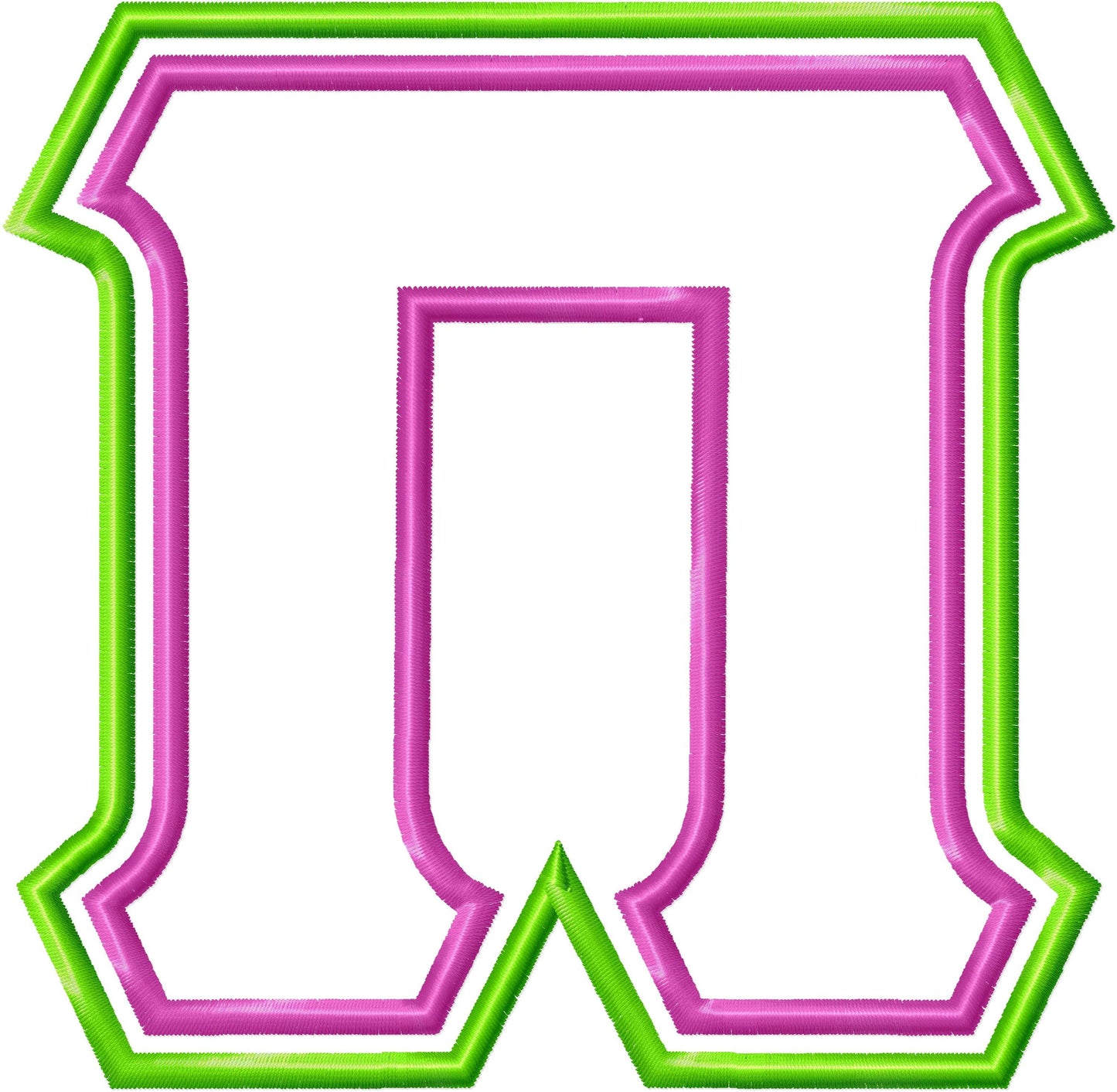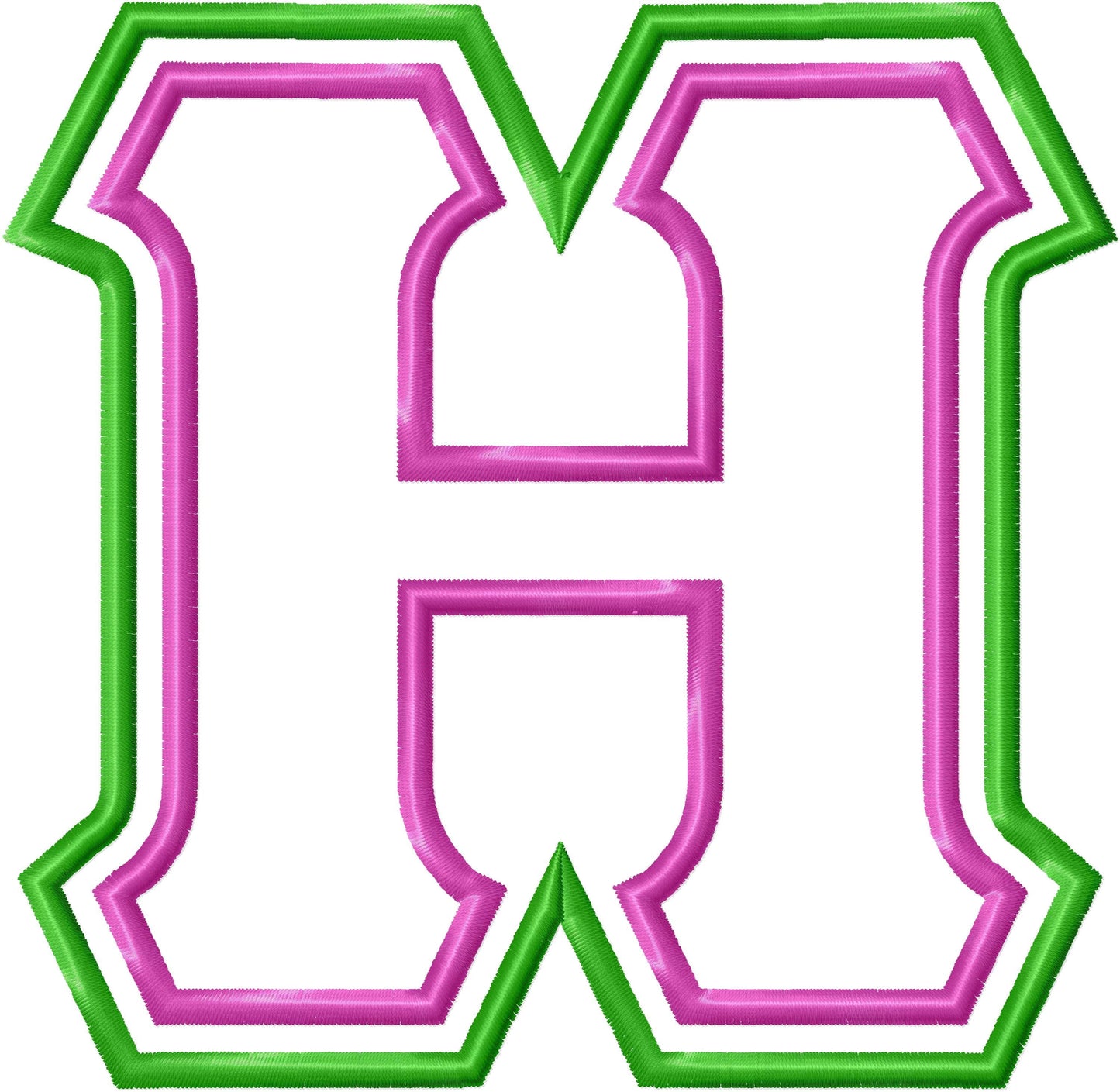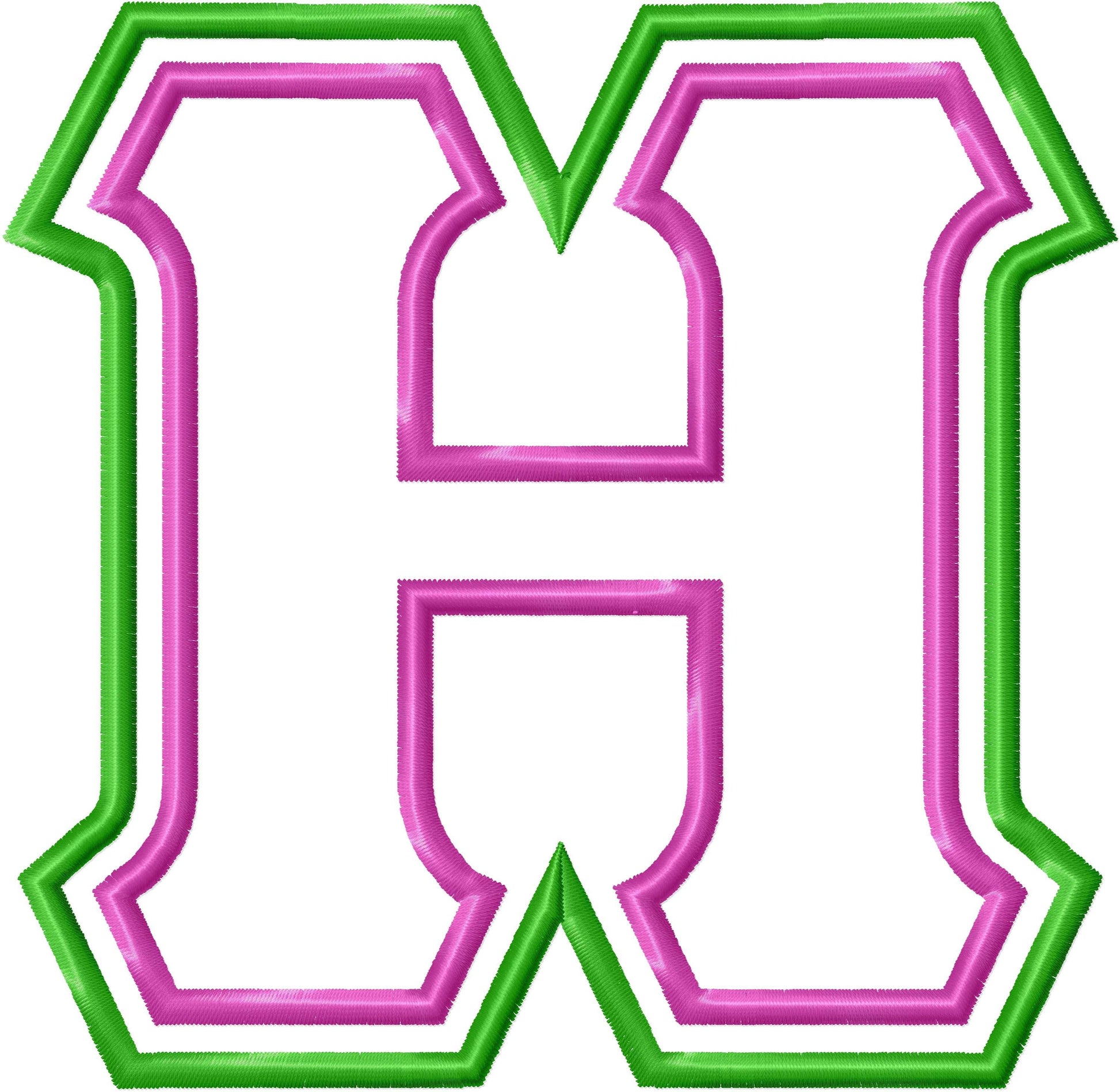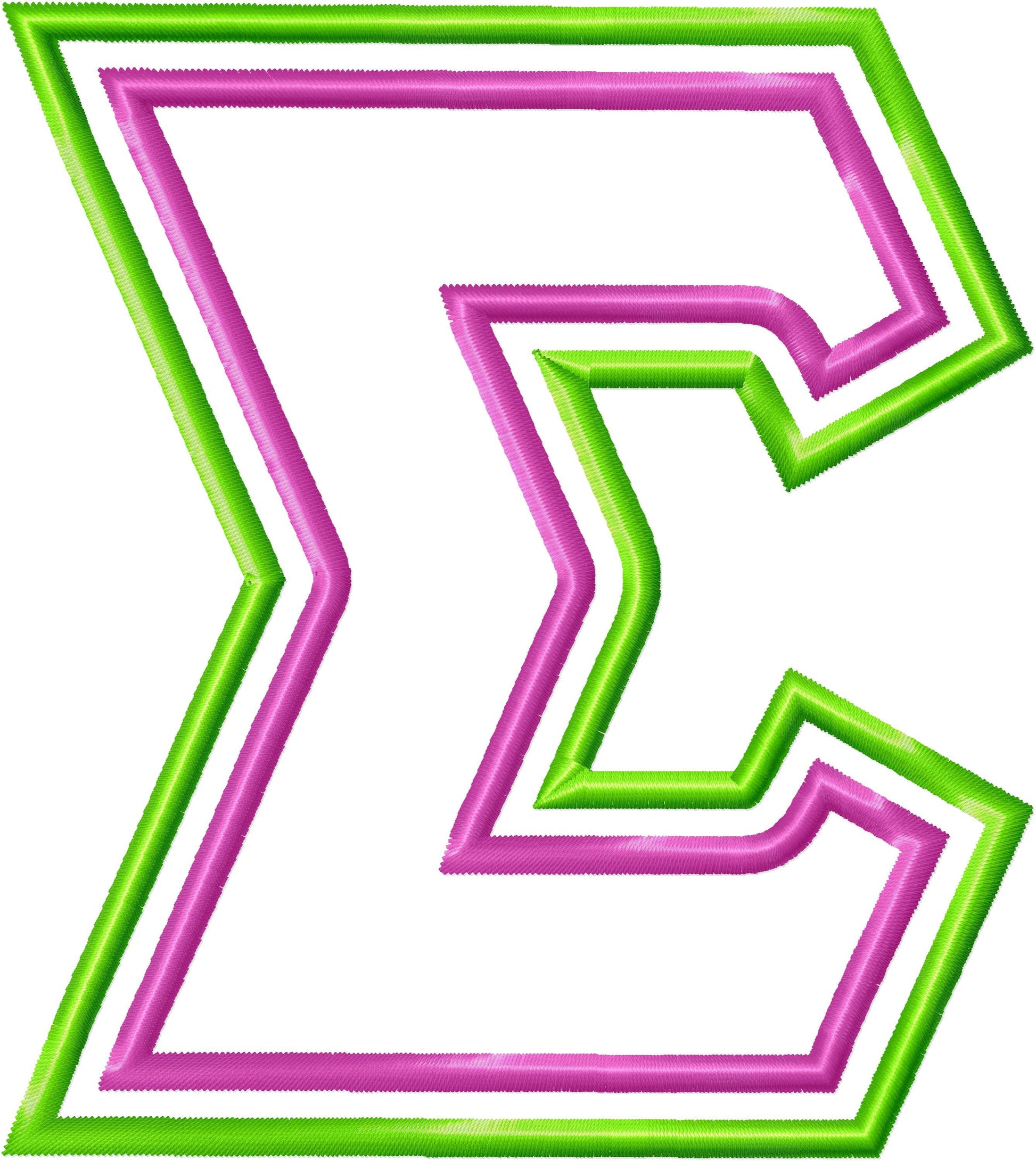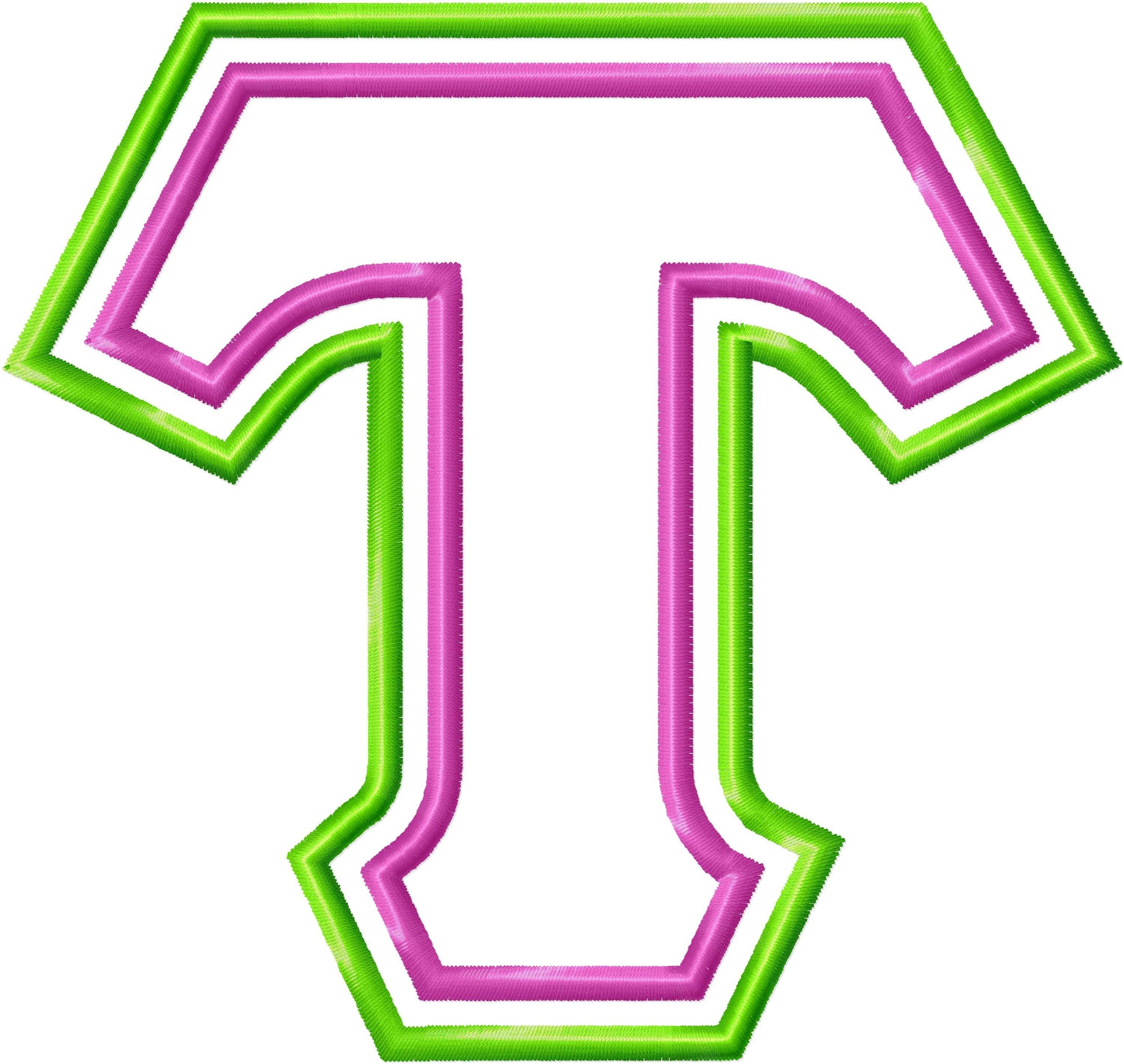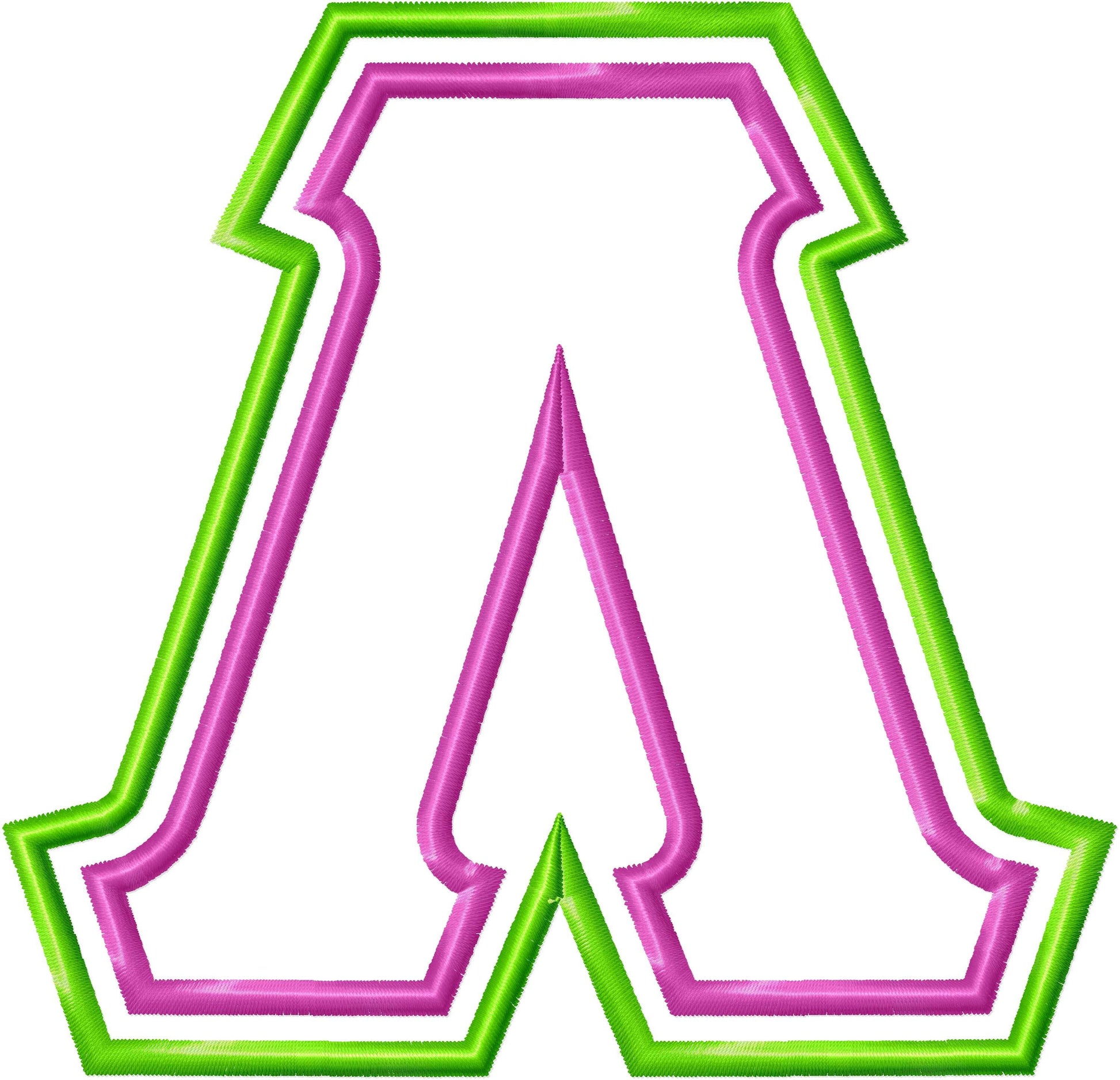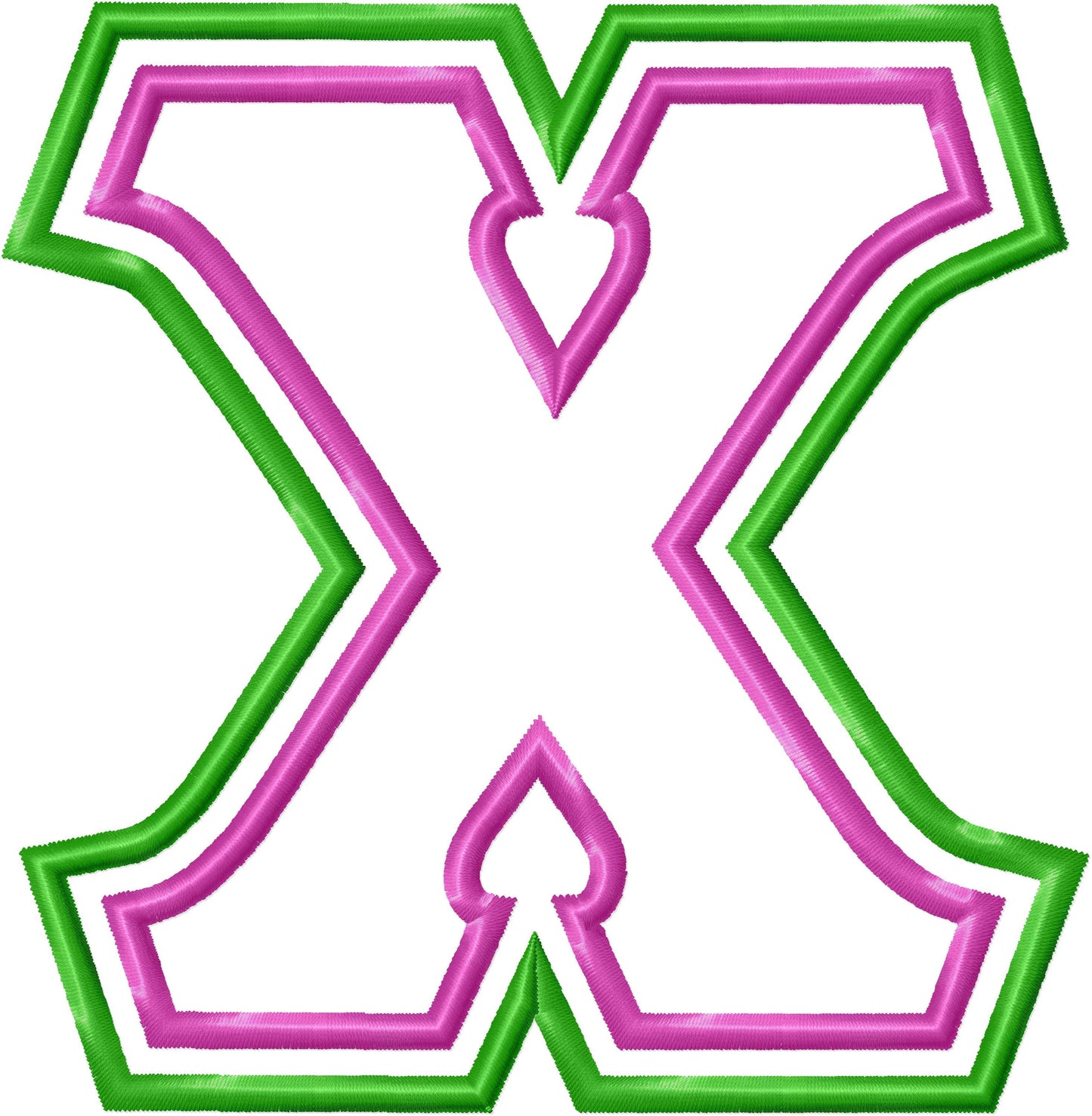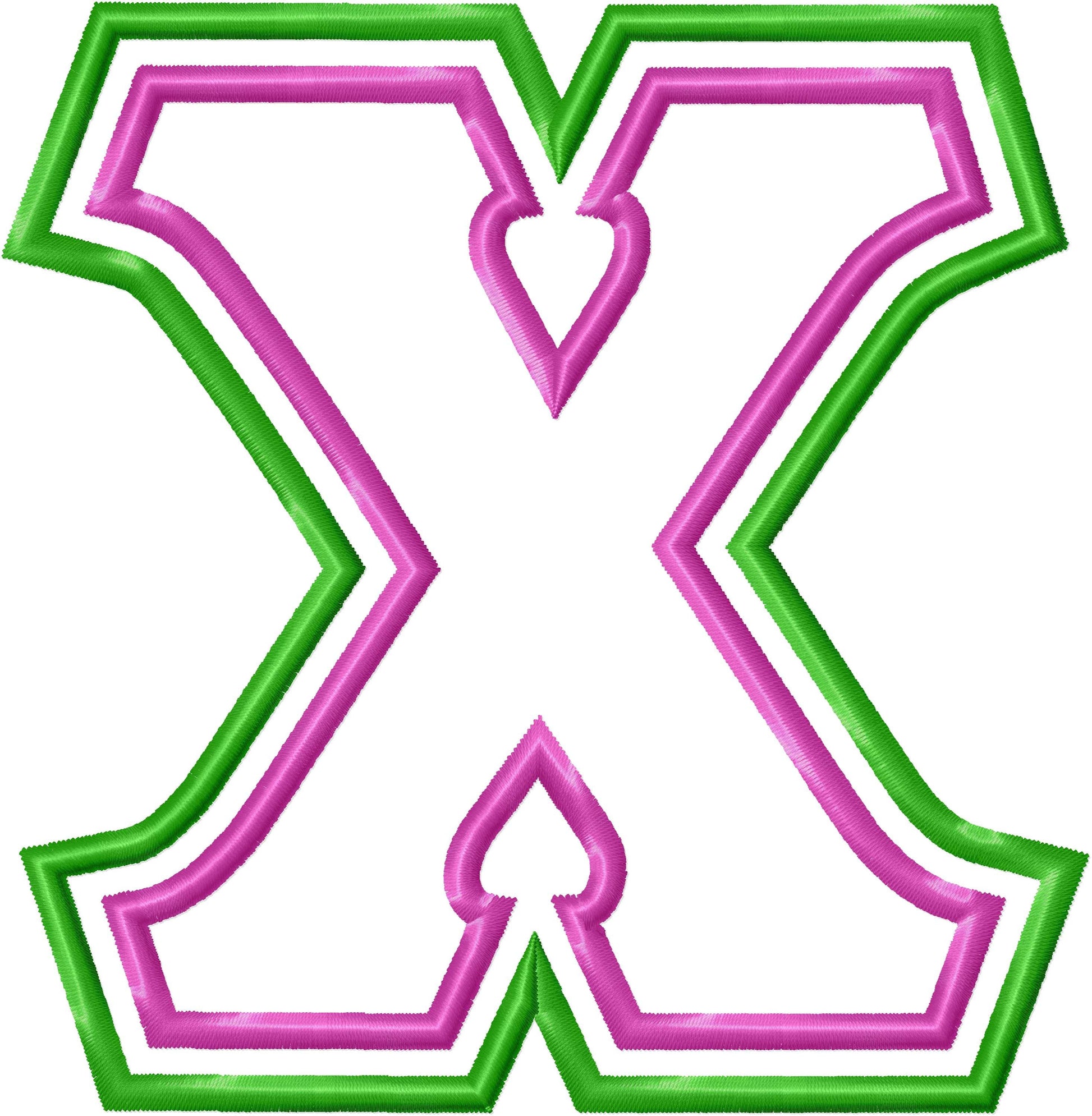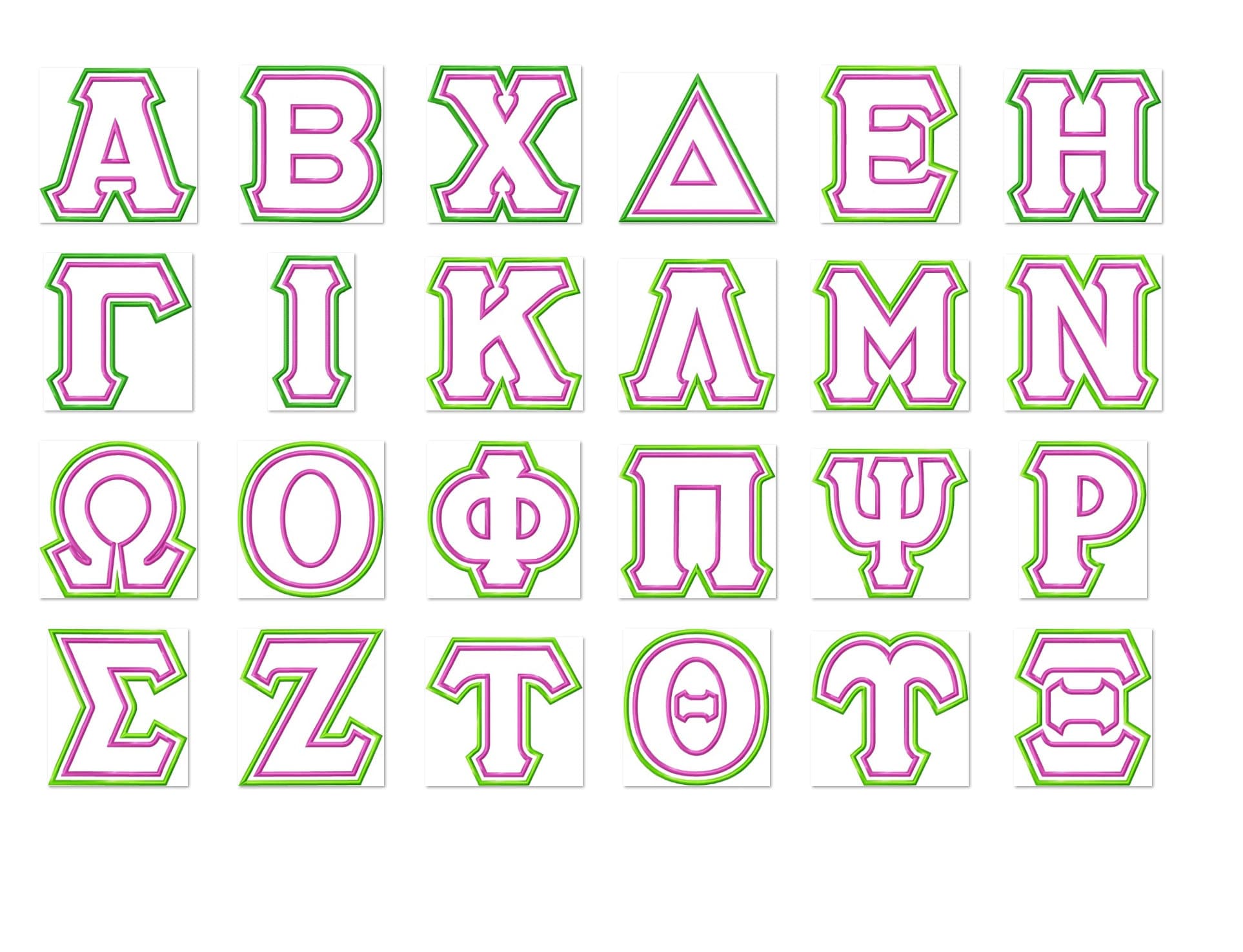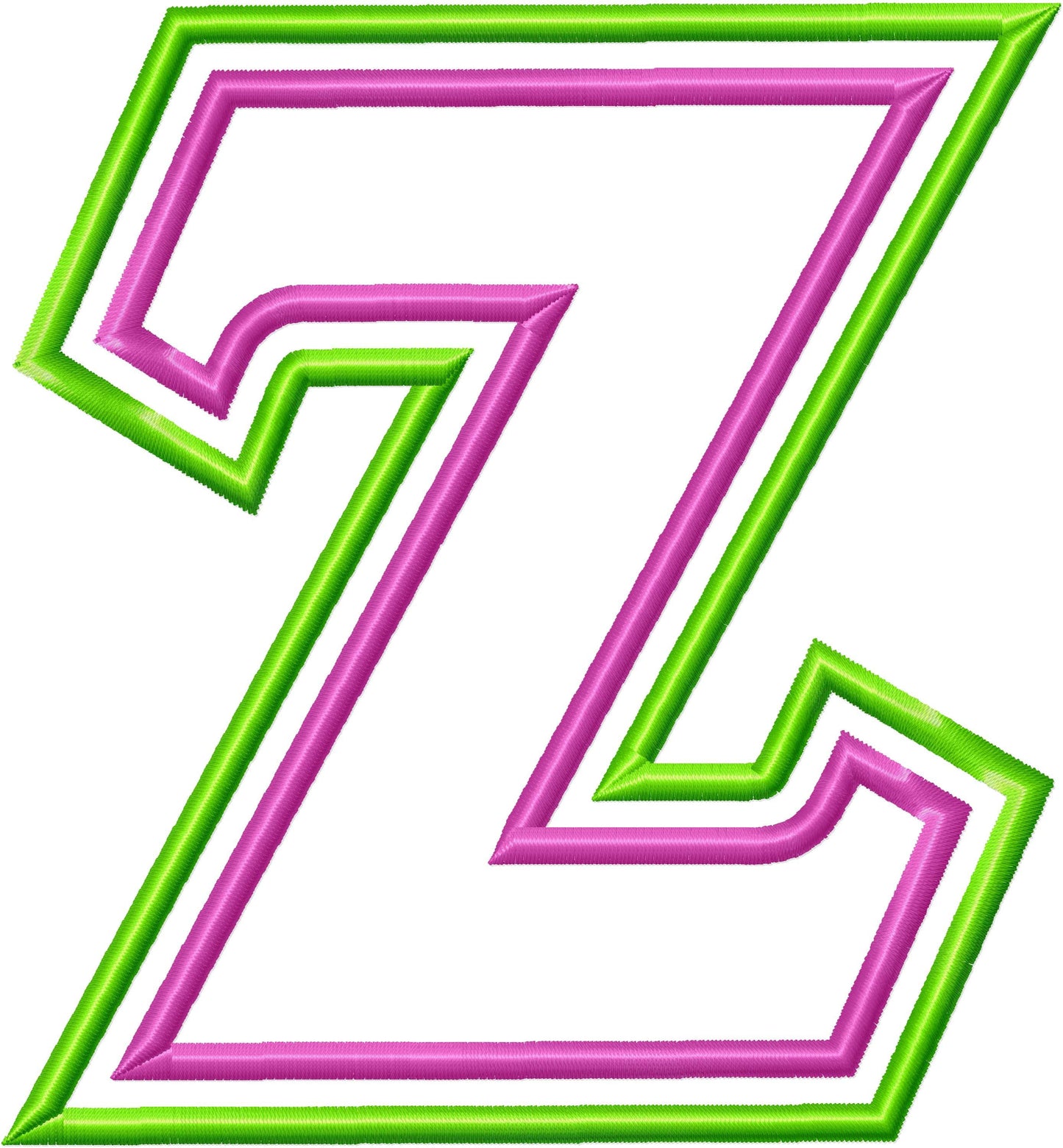
Sororities Greek 2 Layers Font
The whole Greek alphabet as a two-layer classic satin applique, for sorority and fraternity letters. Great on jerseys, sweatshirts and bags.
All 24 Greek letters as a two-step double applique with a classic satin stitch outline, in two colors. Six sizes: 3, 4, 4.5, 5, 6 and 7 inches.
• Whole Greek alphabet, 24 two-layer satin applique letters
• Two colors
• 6 sizes, 3 to 7 in